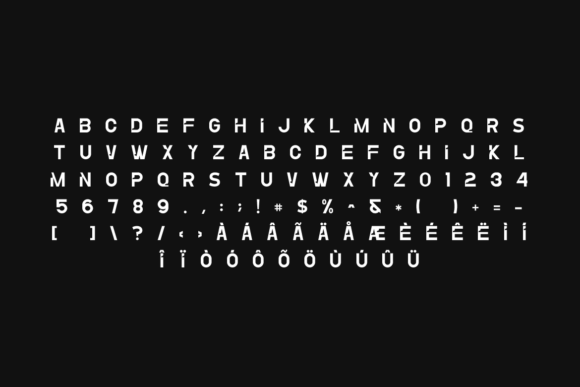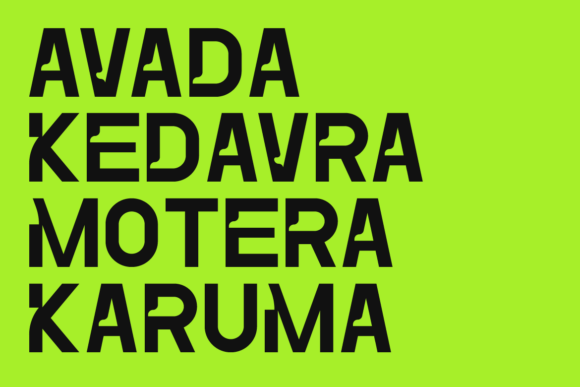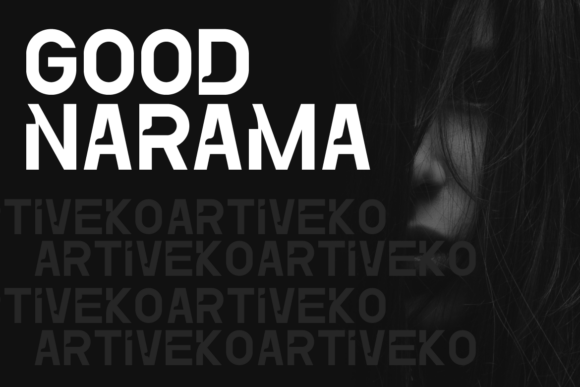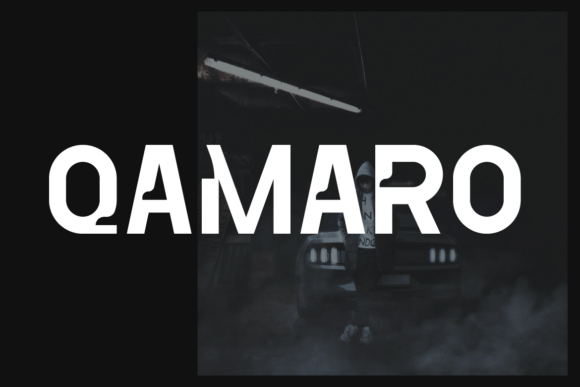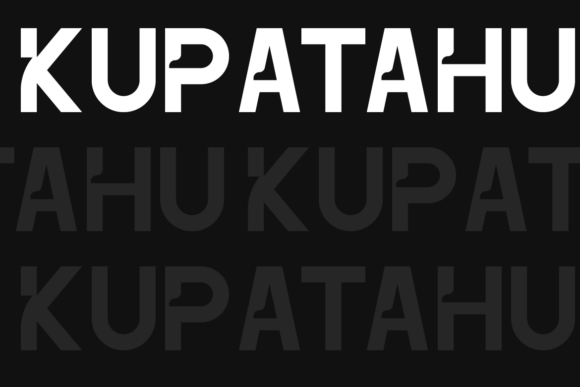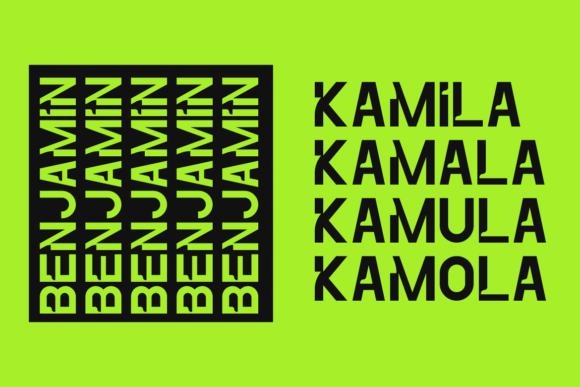
Introduction to Maqon Font
Maqon is a distinctive sans serif font that blends geometric precision with artistic curves, resulting in a font that feels both modern and uniquely expressive.
Designed for creatives who value originality, Maqon stands out with its subtle quirks, clean structure, and confident personality .